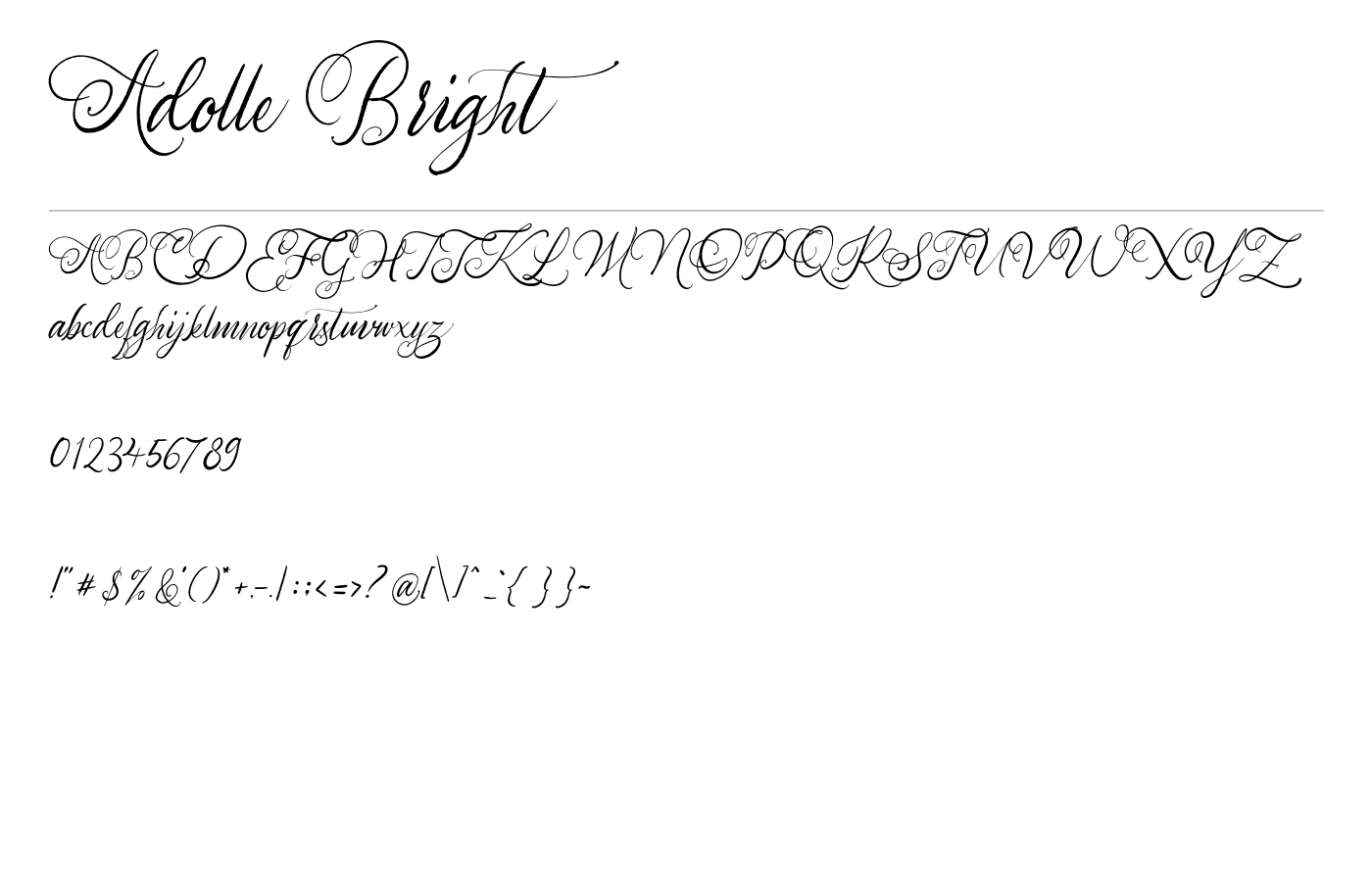
Adolle Bright is an elegant script font characterized by its delicate, flowing letterforms with high contrast between thin and thick strokes. Its elaborate swashes and decorative uppercase letters give it a luxurious and sophisticated feel, making it perfect for invitations, branding, and formal design projects where a graceful, refined touch is desired. This font shines in creating a romantic, classic atmosphere ideal for fashion, wedding, and upscale editorial use.
Adolle Bright Font
About Adolle Bright Font
| Font family | Adolle Bright Font |
| Release date | 2020-05-30 |
| Designer | Hendra Maulia |
| Trademark | Dirtyline Studio |